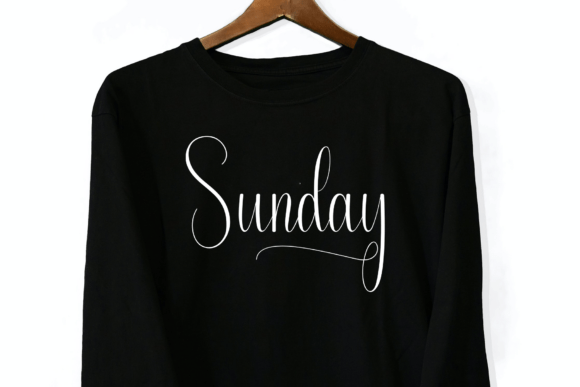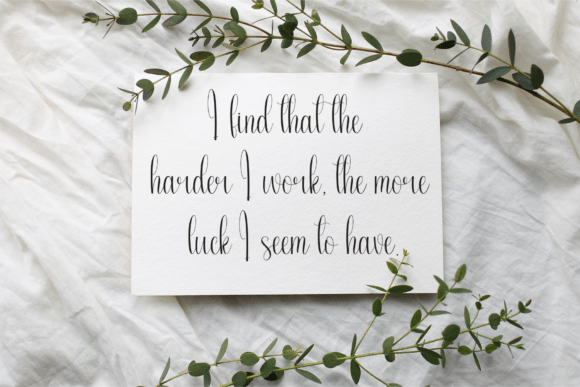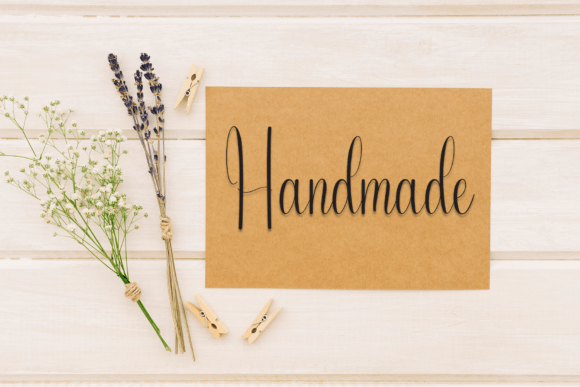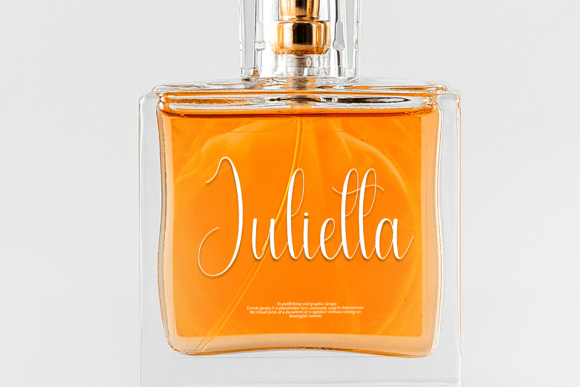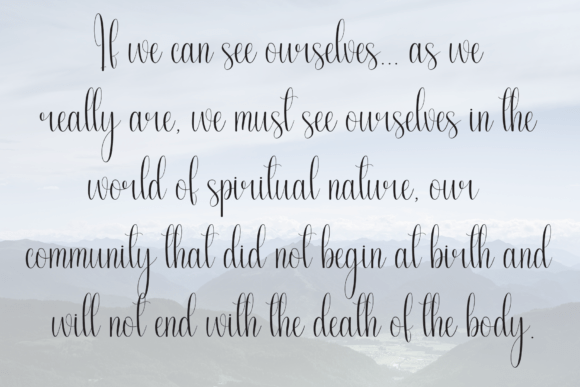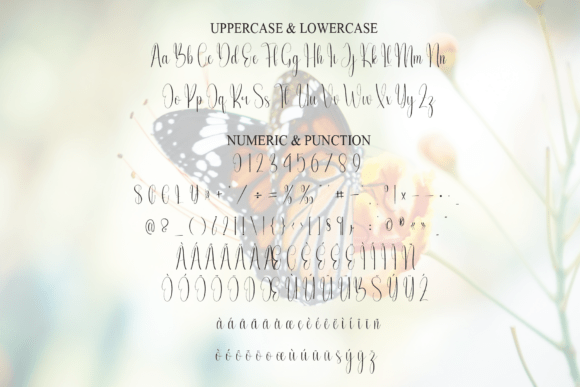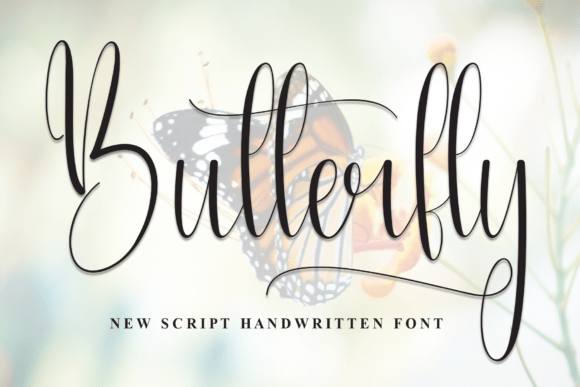
Introducing Butterfly Font: Elevate Your Designs with Elegance and Charm
In the world of typography, few fonts manage to strike a balance between elegance and modernity as effortlessly as the Butterfly Font. This stylish handwritten script font is designed to bring a touch of sophistication and warmth to any project, making it an ideal choice for designers and crafters looking to add a personal, refined touch to their work.
The Essence of Butterfly Font
Butterfly Font is characterized by its flowing strokes and organic curves, which give it a unique, handcrafted feel. The font’s design is inspired by the delicate, airy quality of butterfly wings, hence its name. Each letter is carefully crafted to flow smoothly into the next, creating a sense of movement and fluidity that is both captivating and charming.
Key Features of Butterfly Font
- Elegant and Modern: Butterfly Font combines traditional elegance with a modern flair, making it versatile enough to be used in a wide range of design projects.
- Handwritten with Love: The font’s handwritten nature gives it a personal touch that is hard to replicate with more uniform, machine-generated fonts.
- Flowing Strokes: The flowing strokes and organic curves of Butterfly Font add a dynamic, artistic feel to any text.
- Versatile: Whether you’re working on branding, invitations, social media graphics, or any other project, Butterfly Font can add a touch of sophistication and charm.
Use Cases for Butterfly Font
The versatility of Butterfly Font makes it suitable for a variety of applications. Here are some of the most popular use cases:
- Branding: Use Butterfly Font to create a memorable logo or to develop a cohesive brand identity that stands out for its elegance and charm.
- Invitations: Whether it’s a wedding invitation, a birthday party invite, or any other special occasion, Butterfly Font can add a touch of class and personalization.
- Social Media Graphics: Stand out on social media with eye-catching graphics that incorporate Butterfly Font for a stylish, sophisticated look.
- Packaging: Add a personal touch to your product packaging with Butterfly Font, making your brand more relatable and attractive to customers.
Tips for Using Butterfly Font Effectively
To get the most out of Butterfly Font, consider the following tips:
- Pair with Complementary Fonts: For maximum impact, pair Butterfly Font with fonts that complement its elegance and modernity. A simple sans-serif font can provide a nice contrast.
- Play with Colors: Don’t be afraid to experiment with different colors. Butterfly Font looks great in bold, vibrant colors as well as more subdued, pastel tones.
- Adjust Letter Spacing: For a more customized look, adjust the letter spacing. This can help improve readability and add a unique touch to your design.
Butterfly Font is more than just a typeface – it’s a design element that can elevate your projects with its elegance, charm, and modern flair. Whether you’re a designer looking to add a sophisticated touch to a client’s branding or a crafter working on a personal project, Butterfly Font offers the versatility and style to bring your vision to life. With its flowing strokes, organic curves, and effortless charm, Butterfly Font is sure to become a favorite in your typography arsenal.